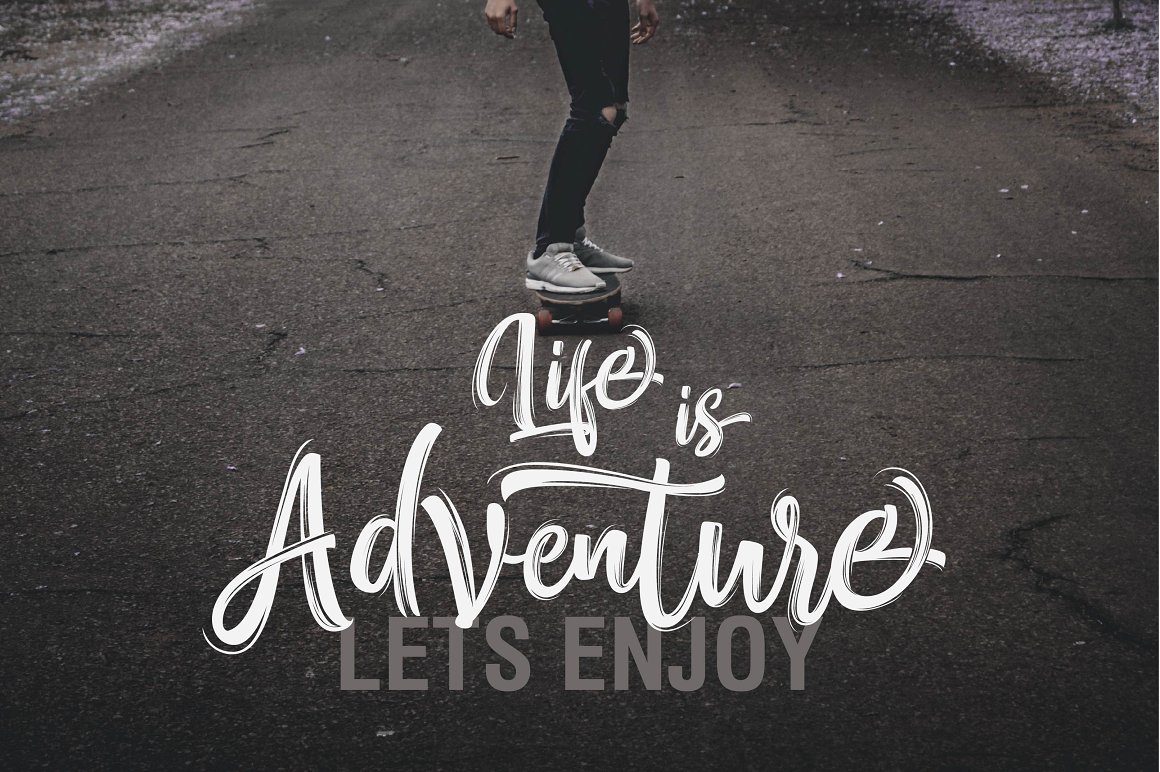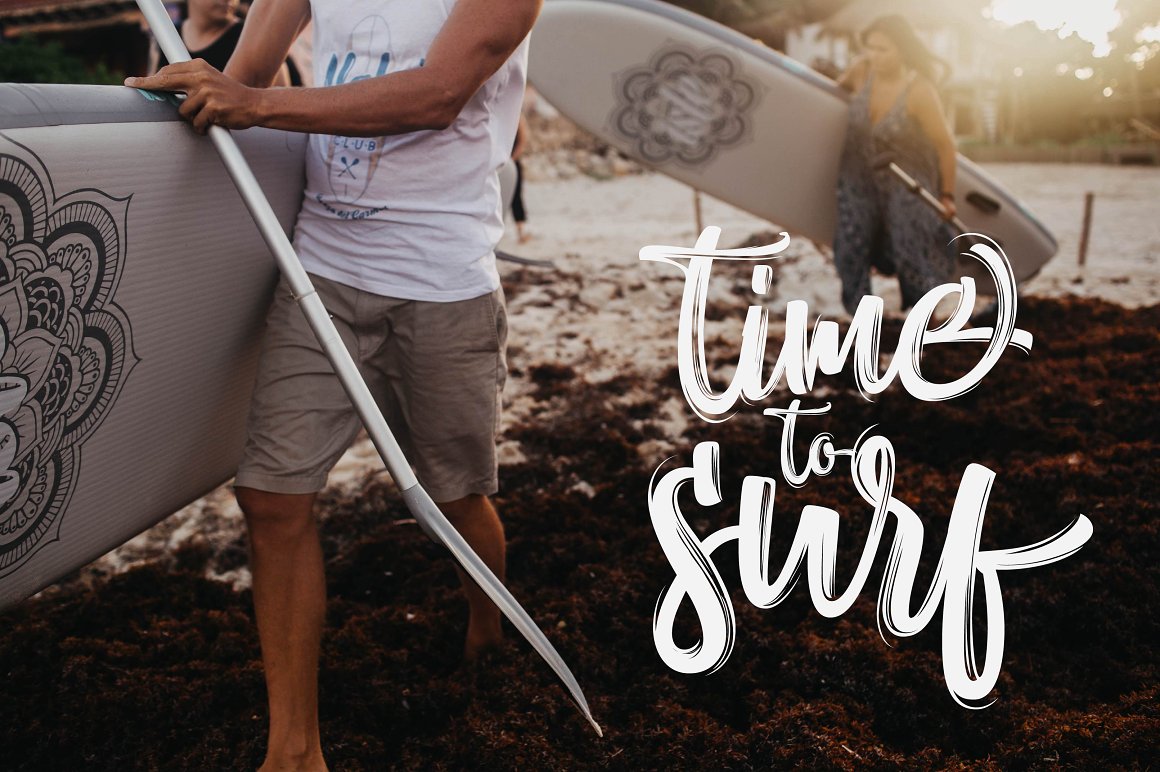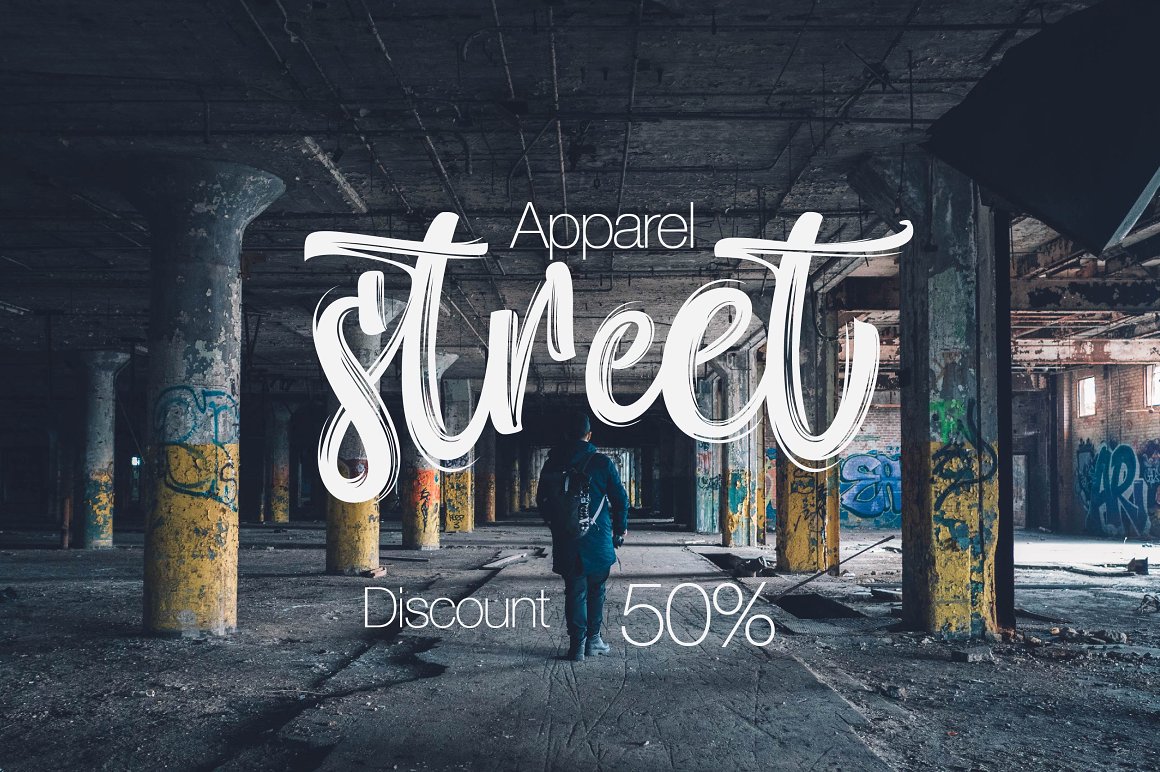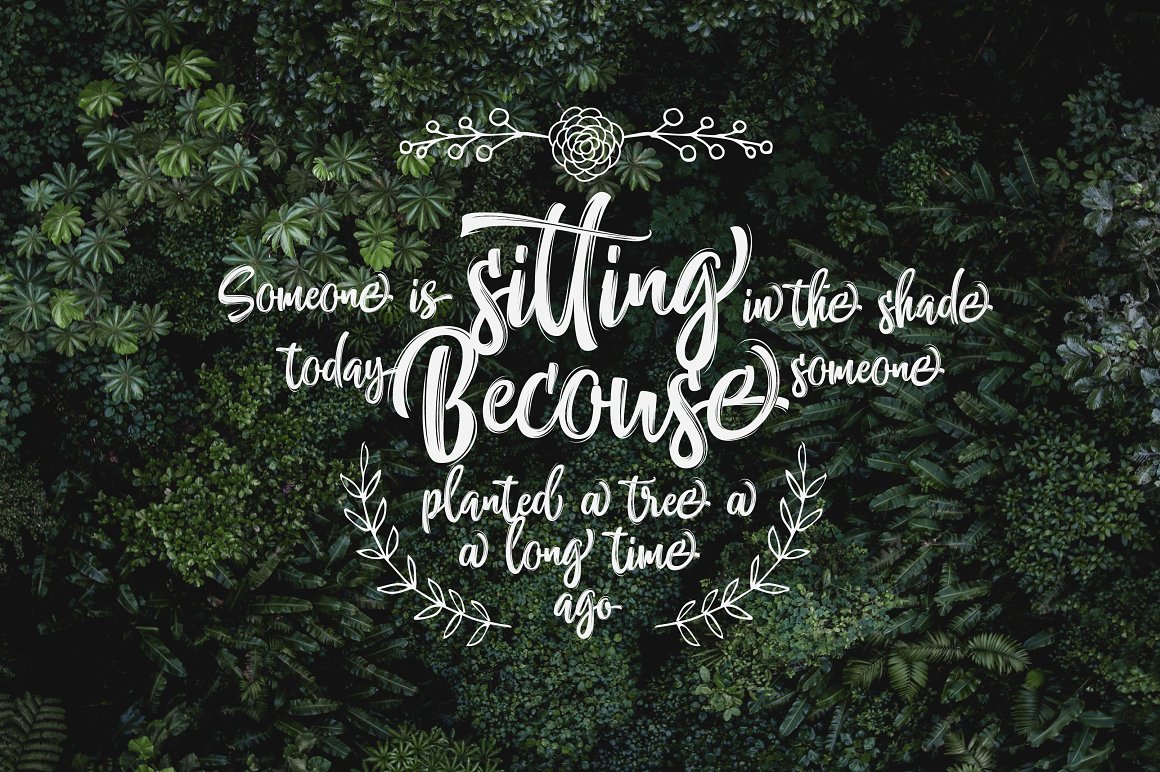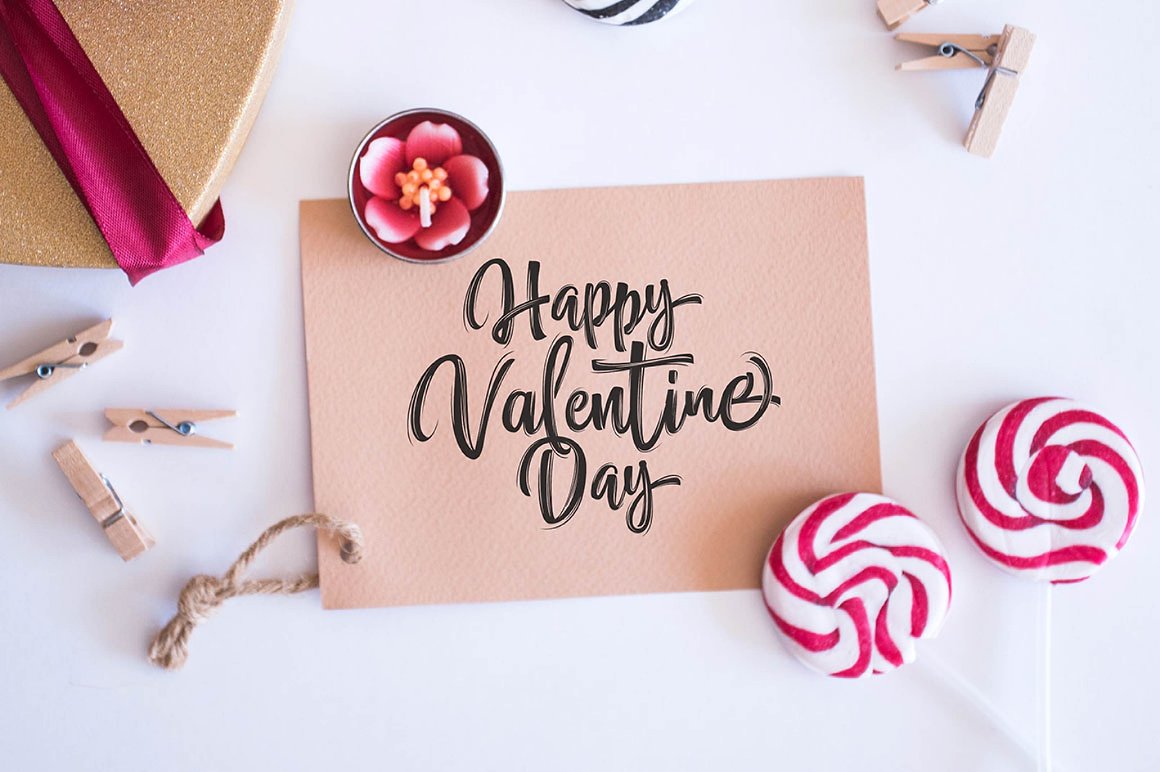
Nettizen Script Font
It’s great, that’s my thinking and feeling, it’s a unique Dancing Script. It will make your work more prominent and more beautiful. Introducing Nettizen Script Font! Nettizen designed and shared by Olexstudio. NETTIZEN – Script Dancing is a beautiful Modern font Typeface, This Font will look gorgeous on all your designs, wedding invites, branding materials, logo’s, t-shirt, poster, business cards, quotes and all project design other.